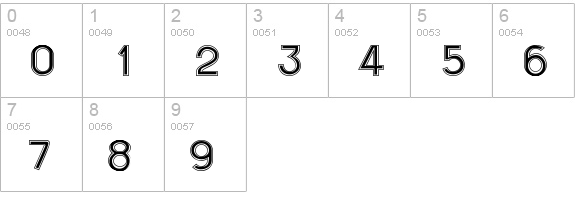
Introducing AndrewAndyCollege font – a bold and dynamic typeface that exudes a sense of youthful energy and creativity. The font features strong, angular letterforms with a modern twist, making it perfect for a variety of design projects ranging from posters to branding materials. What sets AndrewAndyCollege font apart is not only its striking appearance but also its accessibility – it is available for free download at FontsMarket.com. This means that designers and creatives of all skill levels can easily incorporate this unique font into their work without any cost barriers. Whether you're working on a school project, a promotional campaign, or a personal creative endeavor, AndrewAndyCollege font is here to elevate your designs and leave a lasting impression. Download it today and let your creativity soar with this versatile and eye-catching typeface.